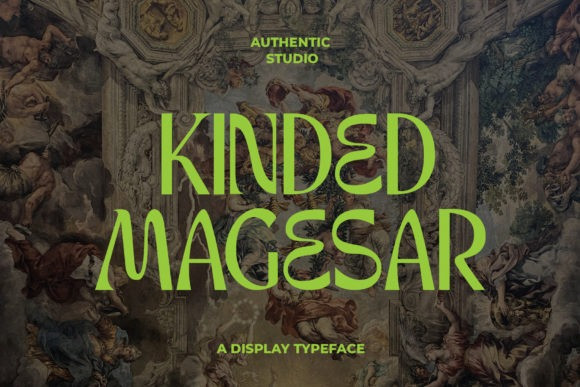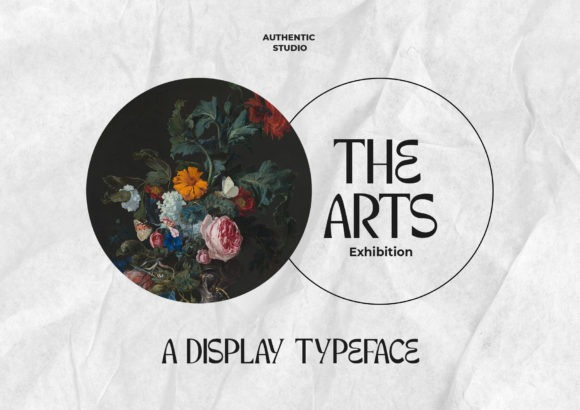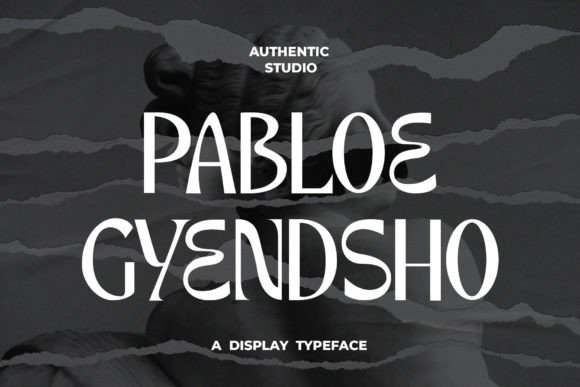
Kinder Magesar Font
Kinder Magesar is a psychedelic inspired display font. It’s retro, bold, and playful. Kinder Magesar is the perfect choice if you need a dose of fun in your future projects.